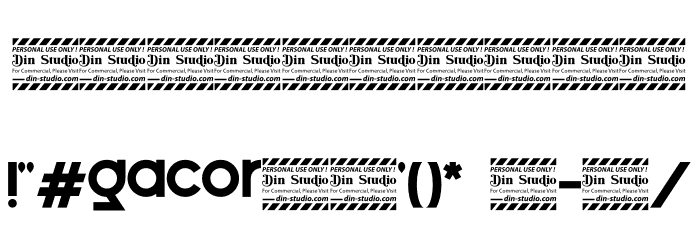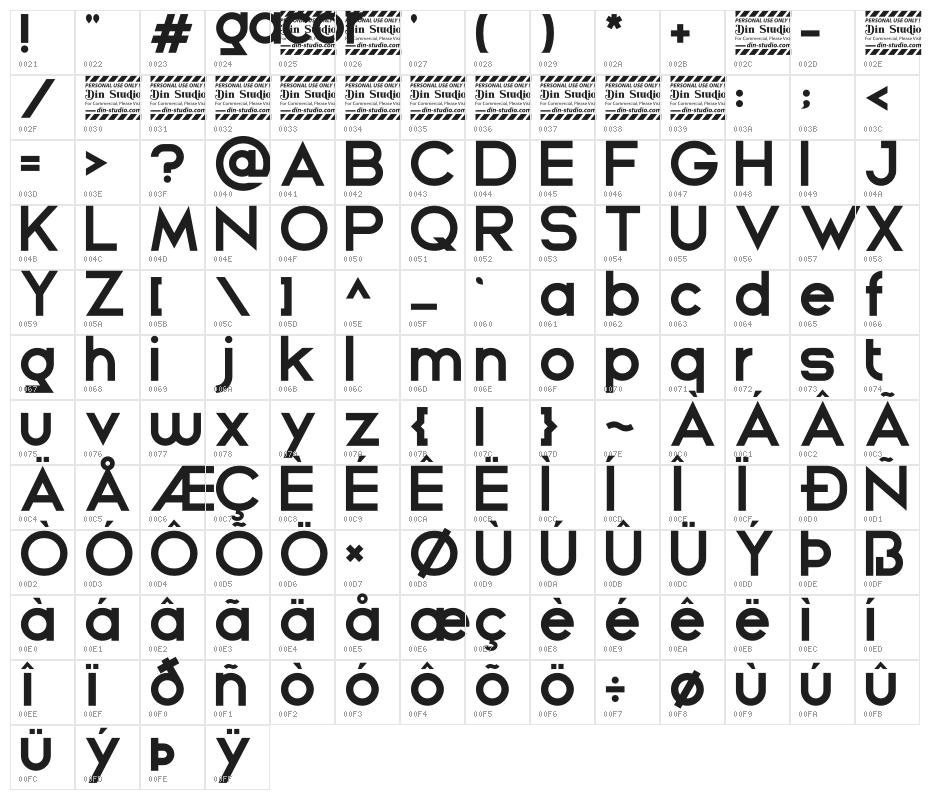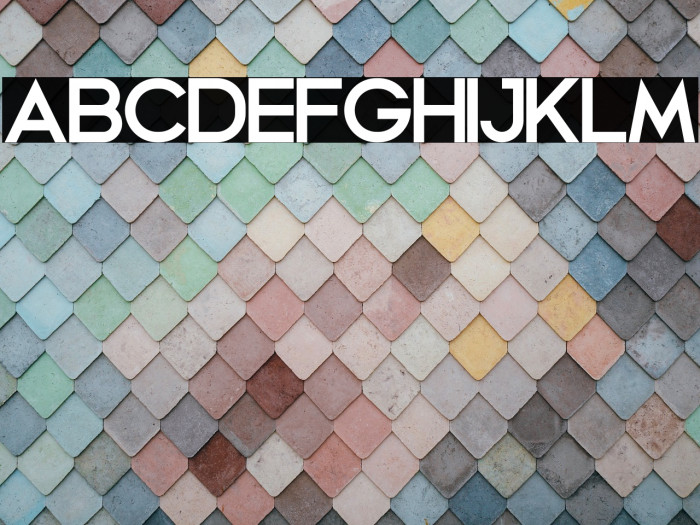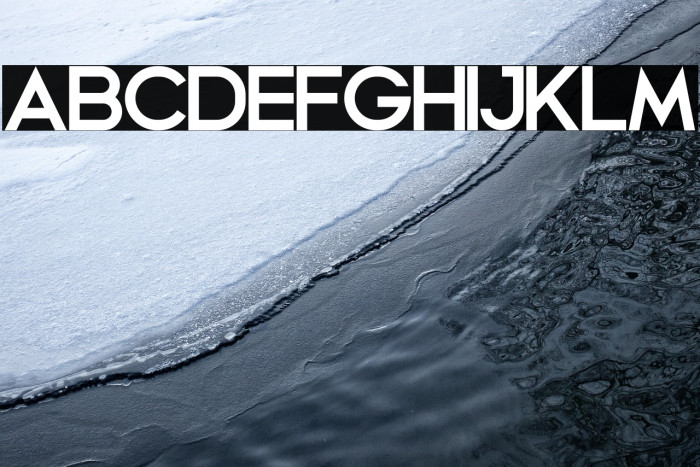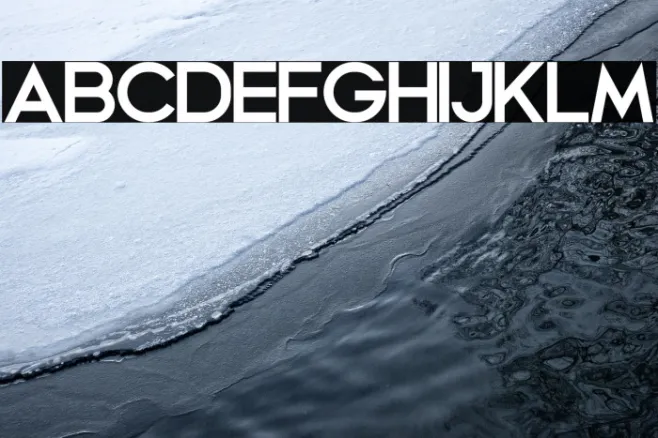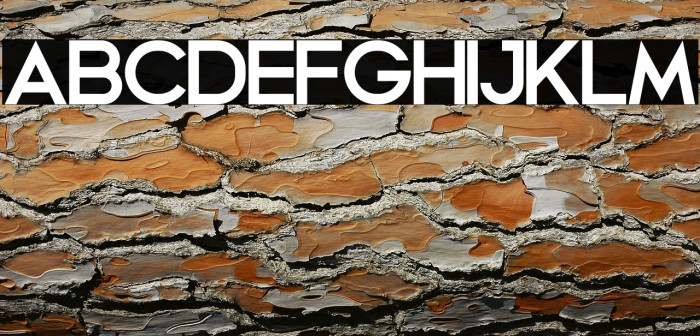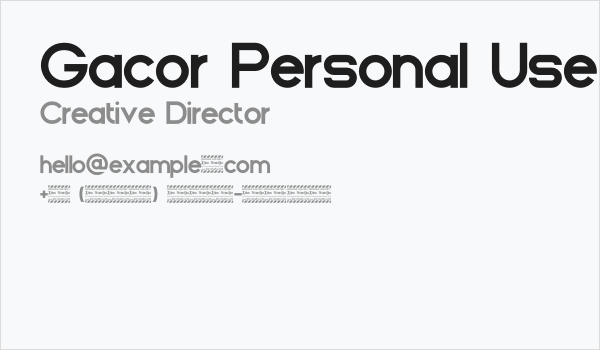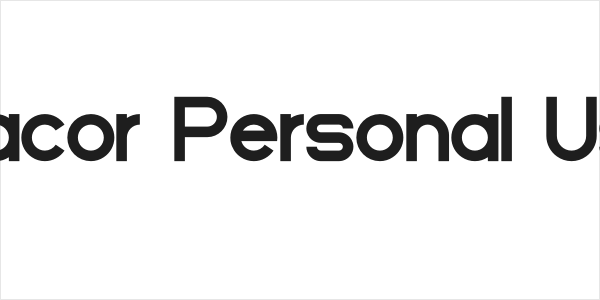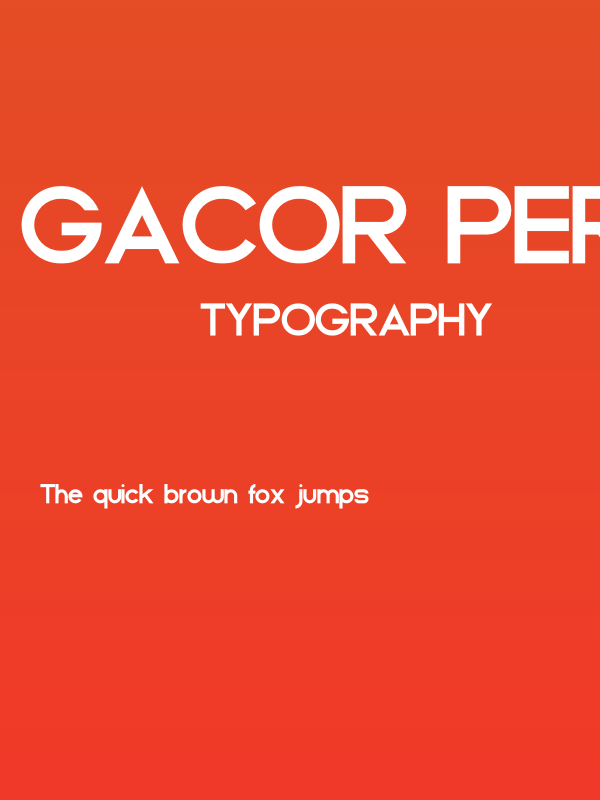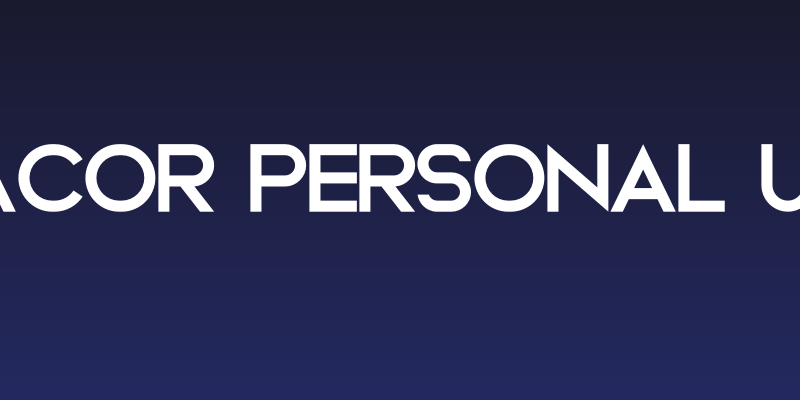
Gacor Personal Use Font
Gacor Personal Use Description
This font features a bold and modern sans-serif style with clean lines and a geometric structure. The uppercase and lowercase letters are well-proportioned, offering a harmonious balance between curves and straight edges. The numerals and special characters maintain the same boldness, ensuring consistency across all text. The design is versatile, making it suitable for various applications, from digital to print media. Its strong presence and readability make it ideal for headlines and branding purposes.
| Proposed Projects | Ideal for branding, advertising, digital media, and print design projects. |